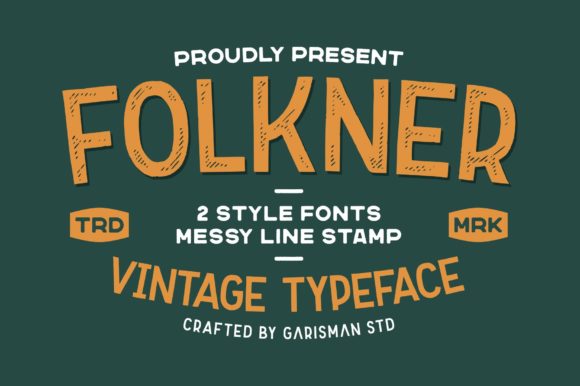
Introducing Folkner Font, the bold and beautiful display font that's perfect for clothing brands seeking to make a statement. With its neat lettering and masterful design, Folkner has the power to elevate your creative vision and bring your ideas to life.
Folkner is more than just a font; it's a gateway to a world of possibilities. Imagine your brand's name or logo emblazoned in Folkner's striking characters, commanding attention and leaving a lasting impression on your customers. Its bold strokes and clean lines exude a sense of sophistication and style, making it the perfect choice for fashion-forward brands looking to stand out from the crowd.
With Folkner, your designs will transcend the ordinary and embrace the extraordinary. Its versatility allows you to create a wide range of stunning visuals, from eye-catching social media posts to captivating website headers. Let Folkner be your creative partner, guiding you towards designs that resonate with your audience and leave them craving more.